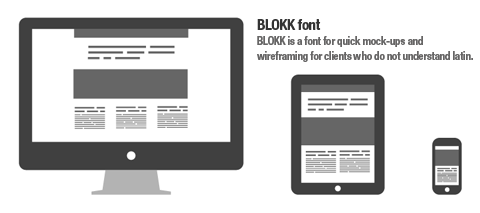
Lorem Ipsum is the most standard placeholder text used in mock-ups and wireframes. It helps to not distract the user with content but focus more on the design and/or layout.
BLOKK Font
BLOKK, which comes as a font, is a nice alternative to Lorem Ipsum. It has no letters but generates (colored) blocks instead.
Such blocks definitely helps concentrating on the layout more and makes more sense for websites with non-Latin characters.